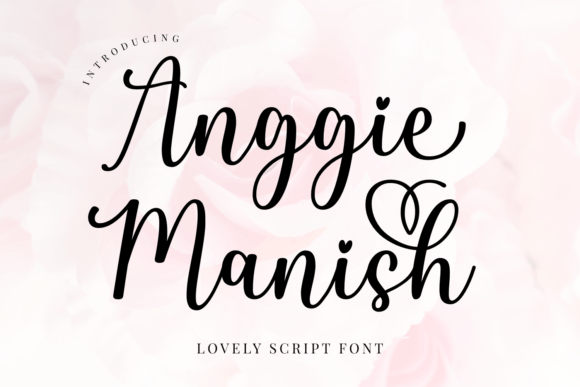
The Elusive Font: A Designer’s Love Affair with Anggie Manish
I still remember the day I stumbled upon Anggie Manish while working on a branding project for a quaint little bakery. I had spent hours scouring the internet for the perfect font, but nothing seemed quite right. That was until I laid eyes on Anggie Manish – a delicate, elegant, and flowing handwritten font that seemed to dance across my screen. It was love at first sight! 💕
As I began to work with Anggie Manish, I realized that its beauty lay not only in its aesthetic appeal but also in its versatility. It paired perfectly with a wide range of designs, from rustic and vintage to modern and sleek. In this article, I’ll share my experience with Anggie Manish, including what I love about it, some minor quirks, and practical tips on how to make the most of this stunning font.
- ✨ Elegant and flowing script: Anggie Manish has a beautiful, cursive feel that’s perfect for projects that require a touch of sophistication.
- ✅ Well-balanced characters: Each letter is carefully crafted to ensure that the font looks great in a variety of contexts.
- 🎉 PUA encoded: With PUA encoding, accessing glyphs and ligatures is a breeze, making it easy to add a personal touch to your designs.
- 🌈 Versatility: Anggie Manish pairs well with a wide range of designs, from rustic to modern.
While Anggie Manish is an exceptional font, there are a few minor things to keep in mind:
- ⚠️ Some characters may require manual adjustment: Depending on the design, you may need to tweak certain characters to ensure they fit perfectly.
- 🤔 Limited availability of language support: Anggie Manish may not support all languages, so be sure to check the font’s specifications before use.
The Story Behind Anggie Manish: A Glimpse into the Designer’s Inspiration
While the true story behind Anggie Manish remains a mystery, it’s easy to imagine that the designer was inspired by the beauty of handwritten scripts. Perhaps they spent countless hours pouring over vintage letters and typography, searching for the perfect blend of elegance and playfulness. Whatever the inspiration, Anggie Manish is a true masterpiece that deserves to be celebrated.
Q: Is Anggie Manish suitable for body text?
A: Anggie Manish is a display font, best suited for headlines and titles. However, it can be used for short paragraphs or body text in certain design contexts.